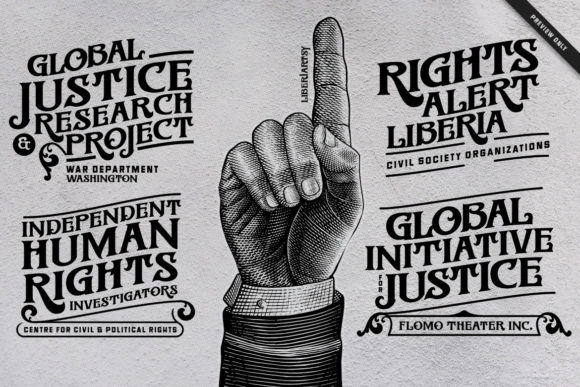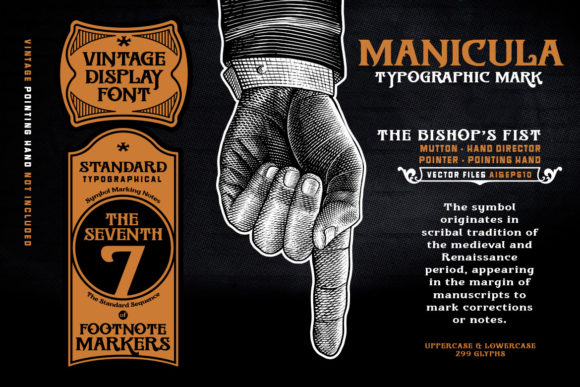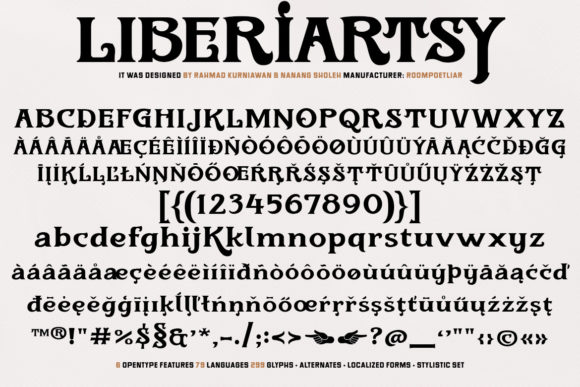
Introduction to Liberiartsy Font
Liberiartsy is a cool, bold and vintage styled display font.
It will look stunning on any poster, label or branding This font is PUA encoded which means you can access all of the amazing glyphs and ligatures with ease.
Key Features of Liberiartsy Font
Why Choose Liberiartsy Font?